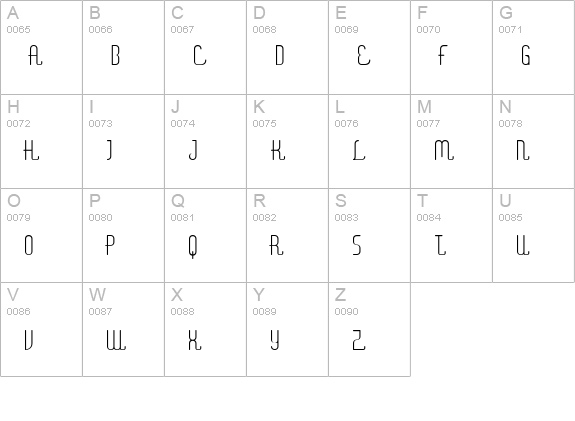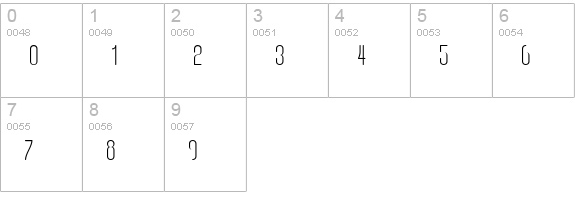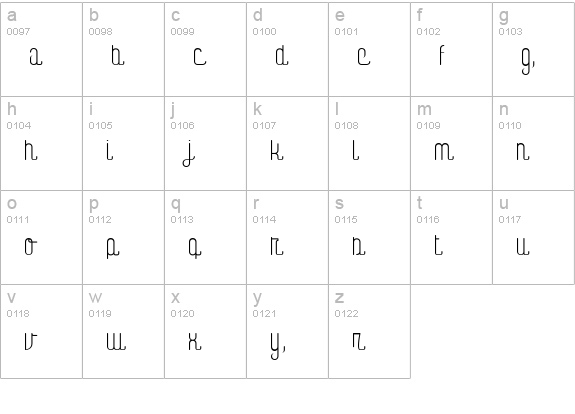
Digital Kauno fenotype Font Details
Digital Kauno fenotype font is a stunning display font with a unique and modern design. It is crafted with meticulous attention to detail, resulting in a font that stands out from the crowd. This font is perfect for adding a touch of sophistication and elegance to any project. One of the best things about Digital Kauno fenotype font is that it is free. Yes, you read that right! This font is freely available to download at FontsMarket.com. This means that you can use it for personal or commercial projects without any restrictions or limitations. With its clean lines and stylish curves, Digital Kauno fenotype font is incredibly versatile. Whether you're designing a logo, creating eye-catching headlines, or crafting beautiful typography for a website or blog, this font will make your text pop. The attention to detail in Digital Kauno fenotype font is truly remarkable. Each letter and character has been carefully crafted to ensure a seamless and visually pleasing appearance. The font also includes a variety of special characters and ligatures, giving you even more creative freedom. Digital Kauno fenotype font is incredibly easy to use. It supports a wide range of languages and can be installed on both Windows and Mac systems. With its user-friendly interface, you'll be able to start using this font in no time. In addition to its stunning design and easy usability, Digital Kauno fenotype font also boasts excellent legibility. Whether you're working with large or small text sizes, this font will ensure that your message is clear and easy to read. Overall, Digital Kauno fenotype font is a must-have for any designer or typographer. Its unique and modern design, combined with its versatility and excellent legibility, make it a standout choice. And the fact that it is freely available to download at FontsMarket.com is just the cherry on top. So why wait? Download Digital Kauno fenotype font today and elevate your design projects to new heights.